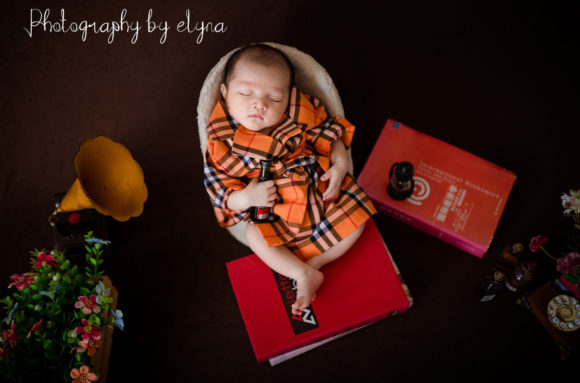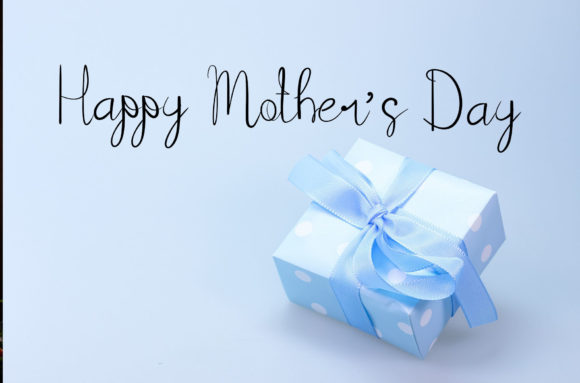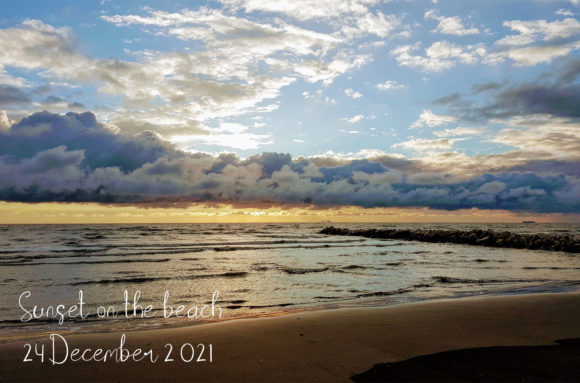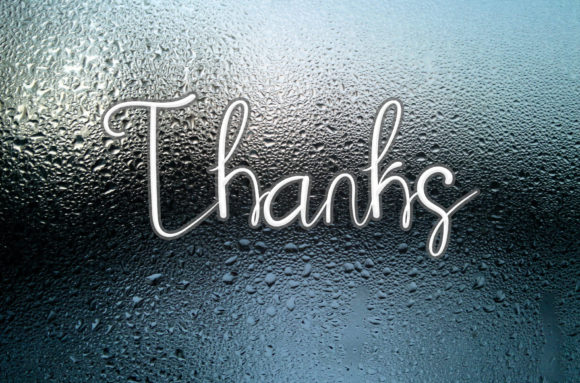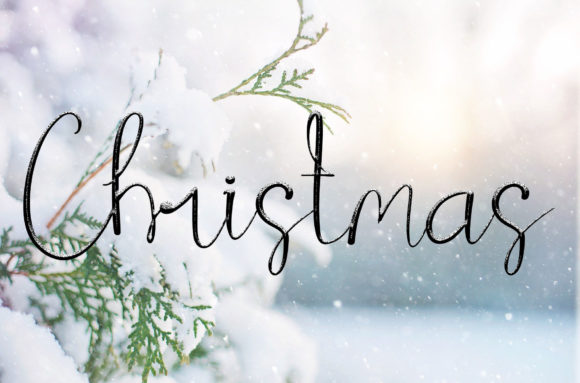
Introducing Christmas Font: A Romantic and Sweet Calligraphy Typeface
Are you looking for a font that can add a touch of luxury and festivity to your design projects? Look no further than Christmas Font, a beautiful calligraphy typeface that is perfect for creating stunning holiday-themed designs. In this article, we’ll take a closer look at the features and benefits of Christmas Font, and explore how it can elevate your designs to the next level.
What is Christmas Font?
Christmas Font is a romantic and sweet calligraphy typeface that is designed to evoke the magic and wonder of the holiday season. With its flowing lines and elegant script, this font is perfect for creating beautiful and eye-catching designs that are sure to impress. Whether you’re a designer, crafter, or DIY enthusiast, Christmas Font is a versatile and stylish choice that can add a touch of luxury to any project.
Key Features of Christmas Font
So, what makes Christmas Font so special? Here are just a few of its key features:
- Dancing Characters: One of the standout features of Christmas Font is its unique dancing characters that dance along the baseline. This creates a playful and whimsical effect that adds visual interest to any design.
- Luxury Spark: With its elegant script and flowing lines, Christmas Font is designed to add a touch of luxury to any design project. Whether you’re creating a holiday card, gift tag, or social media graphic, this font is sure to impress.
- PUA Encoded: Christmas Font is PUA (Private Use Area) encoded, which means that you can access all of the amazing glyphs and ligatures with ease. This makes it easy to create beautiful and intricate designs that showcase the full range of the font’s capabilities.
Benefits of Using Christmas Font
So, why should you choose Christmas Font for your design projects? Here are just a few of the benefits of using this beautiful font:
- Easy to Use: Christmas Font is designed to be easy to use, even for those with limited design experience. With its PUA encoding, you can access all of the font’s features and glyphs with just a few clicks.
- Versatile: Whether you’re creating holiday-themed designs, wedding invitations, or social media graphics, Christmas Font is a versatile choice that can add a touch of elegance and sophistication to any project.
- Unique: With its dancing characters and elegant script, Christmas Font is a unique and eye-catching choice that is sure to stand out from the crowd.
Design Ideas Using Christmas Font
So, how can you use Christmas Font in your design projects? Here are just a few ideas to get you started:
- Holiday Cards and Invitations: Create beautiful and elegant holiday cards and invitations that showcase the magic and wonder of the season.
- Gift Tags and Wrapping Paper: Add a touch of luxury to your gift tags and wrapping paper with Christmas Font’s elegant script and dancing characters.
- Social Media Graphics: Create eye-catching social media graphics that showcase your brand’s personality and style.
- Wedding Invitations and Stationery: Use Christmas Font to create beautiful and elegant wedding invitations and stationery that will impress your guests.
In conclusion, Christmas Font is a beautiful and versatile calligraphy typeface that is perfect for adding a touch of luxury and festivity to your design projects. With its dancing characters, elegant script, and PUA encoding, this font is easy to use and offers a range of creative possibilities. Whether you’re a designer, crafter, or DIY enthusiast, Christmas Font is a great choice for anyone looking to create stunning holiday-themed designs.